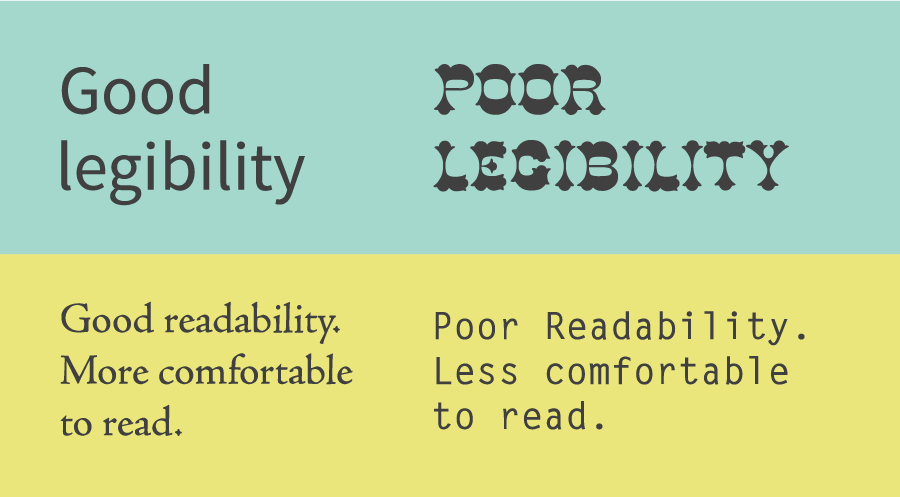
Typography is pivotal in web design, bridging your site and its audience. It communicates your brand’s identity, tone, and message to users. However, choosing a font for a website isn’t as simple as picking something that looks good. Several elements must be examined to ensure the typeface has the intended impact.
- Typography connects your website with its audience, affecting readability and brand perception.
- To ensure your website conveys the correct message, use a font that reflects its goal and brand identity.
- Choose scalable and readable fonts to improve the user experience on any device.
Early Steps Before Deciding Your Font
Before selecting your font, it’s best to start with thoughtful planning and understand the style you’re looking for. For more details, check out the tips below!
1. Start With Finding Your Scope
When choosing typefaces for your website, it’s necessary to know your typographic objectives. Therefore, plan about your fonts. You may ask yourself about these things:
- Which typeface do you need: formal and classic or casual and modern?
- Does the font’s design convey a clear message, or is it intended to be attention-grabbing?
- What kind of font best captures the spirit of your company?
2. Understand the Fonts Classifications
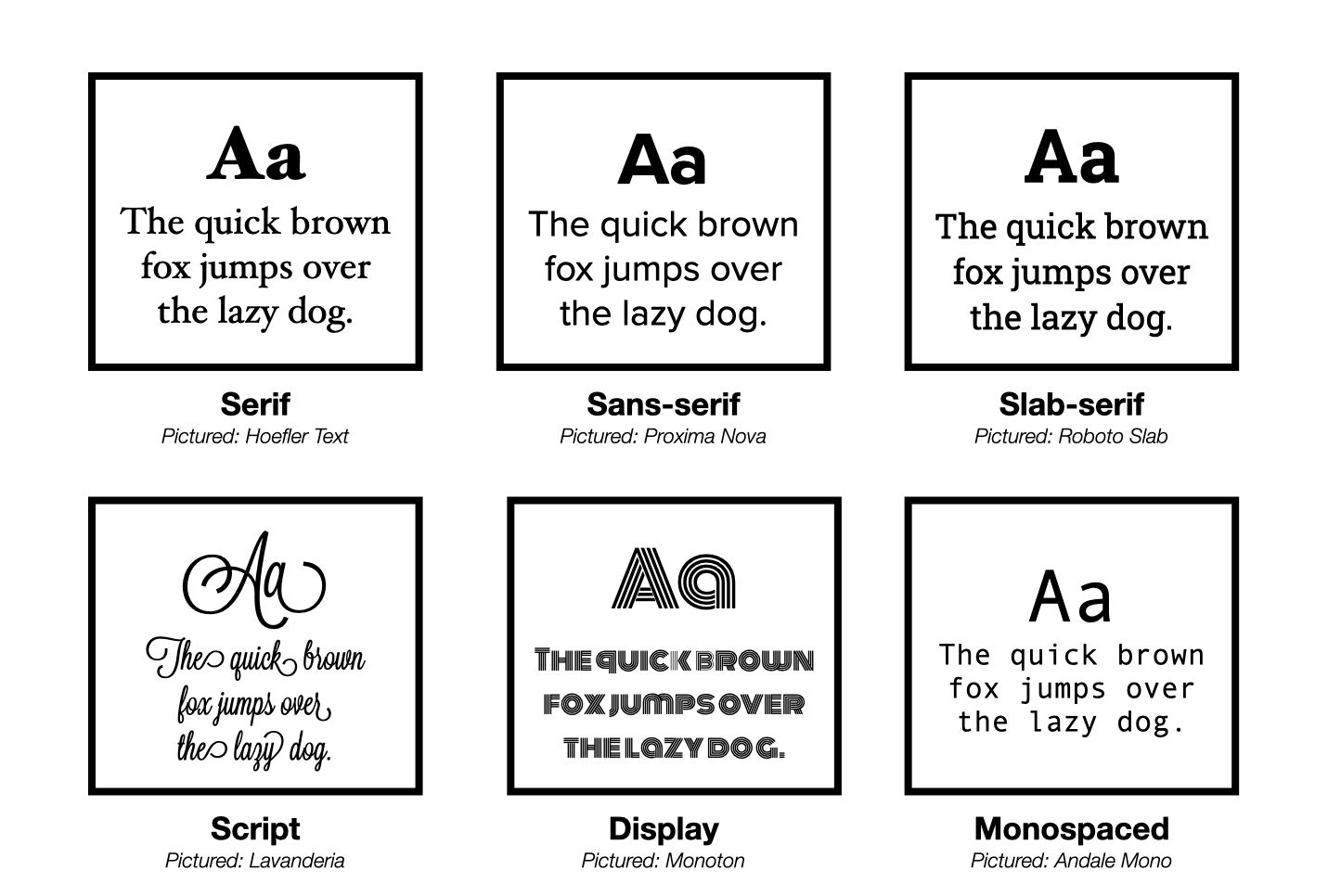
Before choosing a font for your website, it’s helpful to understand the different font classifications. This will enable you to pick a look that best represents your brand’s identity while meeting your design needs. There are various font types to explore:
- Serif Fonts: These fonts have small lines or dashes at the ends of letters. They are traditional and ideal for conveying professionalism and authority.
- Sans Serif Fonts: Lacking extra lines or dashes at the ends of letters, these fonts evoke modernity, simplicity, and clean design.
- Slab Serif Fonts: Similar to serif fonts, but with thicker, block-like designs, giving them a bold appearance.
- Script Fonts: Mimicking handwriting or calligraphy, script fonts feature cursive, flowing designs, making them perfect for aesthetic purposes.
- Display Fonts: Primarily designed for attention-grabbing and decorative purposes, display fonts emphasize eye-catching design.
- Monospaced Fonts: Each character in these fonts occupies the same amount of horizontal space, creating a uniform and structured look.
3. Find More Inspirations
You might already have a font in mind when choosing a font for your website, but exploring additional inspiration can help refine your decision. Font In Use is a great platform to learn how different fonts are applied for various purposes, including web design.
5 Key Considerations in Choosing a Font for a Website
Choosing a typeface for your web design involves more than just a visual look; there are other aspects to consider. Here are some essential considerations for making a sensible font choice.
1. Readability and Legibility
The most important factor when choosing a font for a website is how easy it is to read. A font should be clear and legible across different screen sizes and devices to ensure a comfortable reading experience. Thus, serif and sans serif are the best options due to their legibility.
2. Tone and Brand Identity
You should pick a font that reflects your brand’s personality and messages. For example, a playful display font may work well for a creative agency but would feel out of place on a law firm’s website. When thinking about how to choose a font for a website, consider the emotions and impressions you want to evoke.
For instance, Eden Garden Jewelry’s website establishes a magical brand identity by merging nature and fantasy elements. The typography is essential to this branding, effortlessly communicating the message while perfectly capturing the fantasy vibe.
3. Font Pairing
Font pairing is an art that can significantly enhance the look of your website. When choosing a font for a website, it’s important to combine fonts that work well together. You can pair fonts based on weight, mood, or style. Remember to think about visual hierarchy to ensure your text is arranged efficiently.
Furthermore, online tools like Font Pair can help you explore complementary font combinations.
4. Website Performance
Website performance should always be a priority. Large font files can slow down your site, resulting in longer load times and a frustrating user experience. Always consider the file size and its impact on performance. Web-safe fonts are an excellent choice to ensure a seamless user experience.